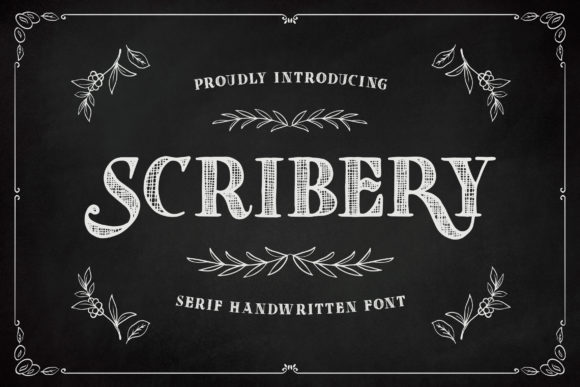
Enter the realm of captivating typography with Scribery Font, a serif masterpiece that dances with elegance and adaptability. Crafted by the artisans at TypeFactory, Scribery is not just a font; it's an artistic journey that transforms your creative visions into tangible wonders.
With its undeniable charm, Scribery effortlessly elevates the mundane into the extraordinary. Whether you're crafting heartfelt cards, building a brand identity that resonates, or designing labels that whisper stories, Scribery is your trusted companion.
Its fluid strokes and timeless appeal make it a versatile chameleon, seamlessly blending into any canvas you envision. Its crisp lines and generous curves are a visual symphony, adding a touch of sophistication to your creations.
Imagine your words dancing across the page, imbued with the grace and poise of Scribery. Every letter, every phrase, every design element will radiate with a refined elegance that captivates and enchants.
With Scribery, you'll discover a font that's not just visually stunning but also remarkably user-friendly. Its intuitive nature makes it a joy to work with, ensuring a seamless creative experience.
So, embrace the artistry of Scribery and let your imagination soar. Let your designs bask in the glow of its timeless beauty and watch as your creative endeavors blossom into breathtaking masterpieces.
Scribery Font - Where classic elegance meets modern versatility.